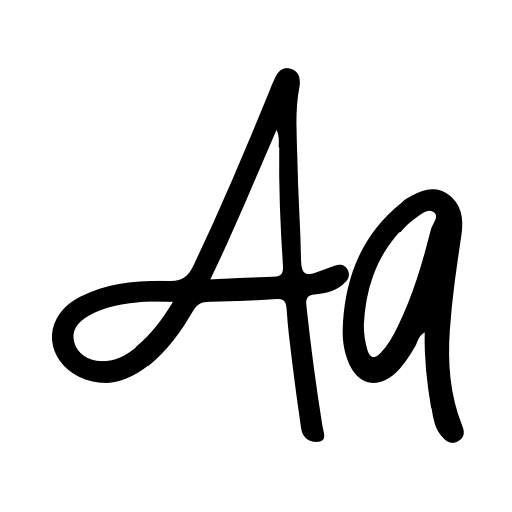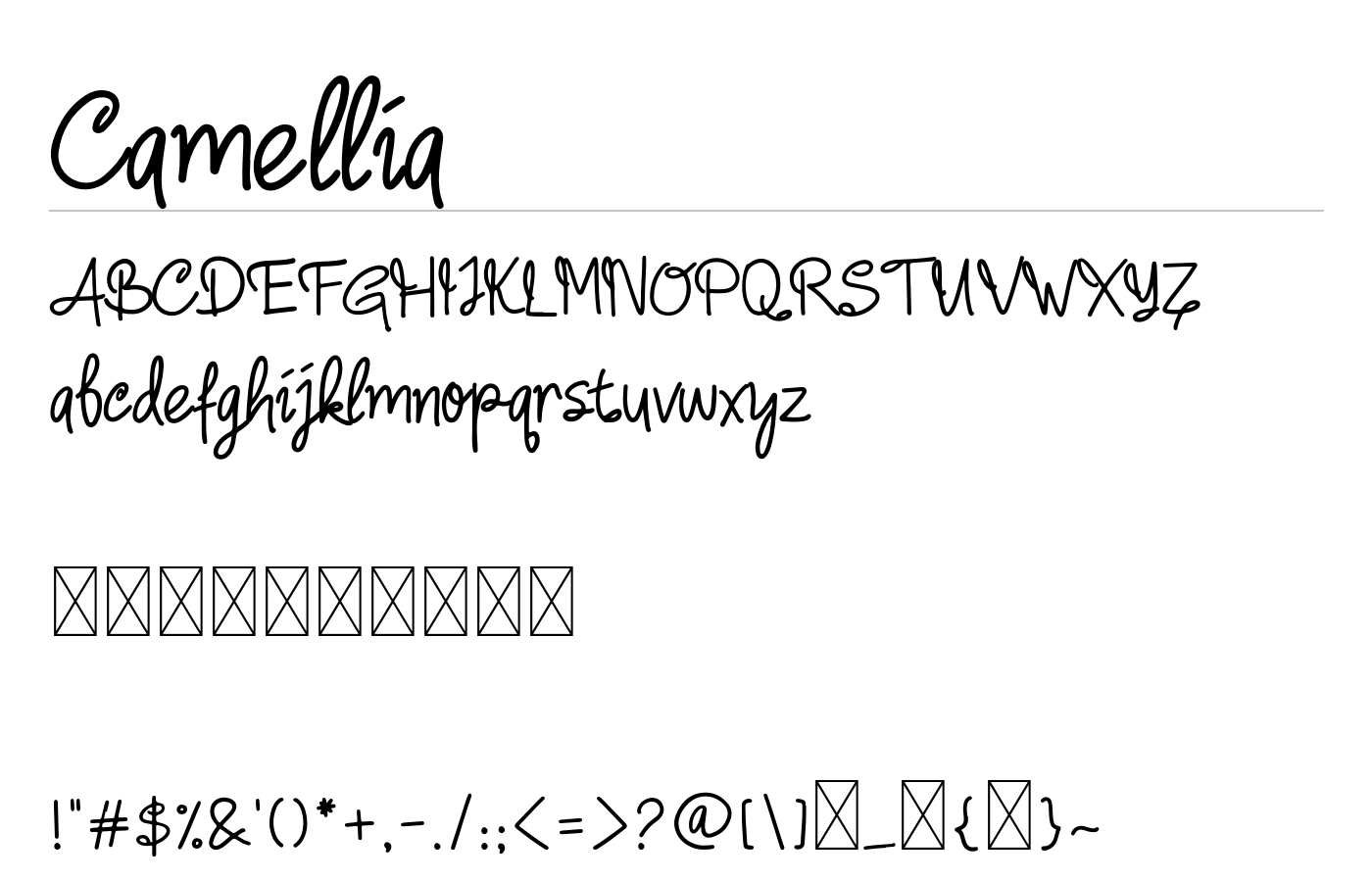
Camellia is a playful and casual handwritten font that features a lively, thin stroke with a natural, slightly irregular flow. Its tall x-height and open letterforms give it an approachable and friendly feel, making it ideal for informal branding, invitations, and creative projects seeking a personal touch. This font works well where a fun, expressive style is needed to add warmth and personality.
Camellia Font
About Camellia Font
| Font family | Camellia Font |
| Designer | Ahmad Syarif Afandi (Peterdraw) |